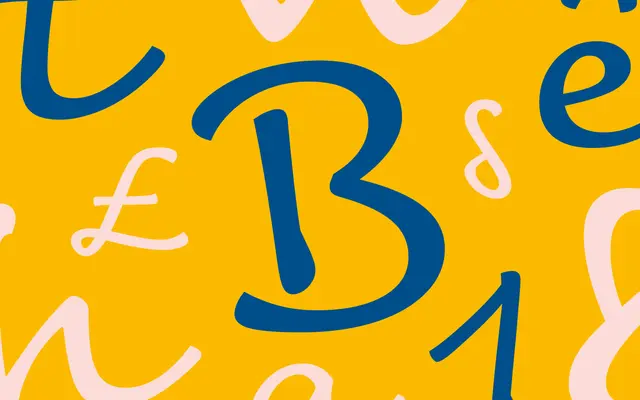
Tornac
Dalton Maag · Jeremie Hornus · 2017
A casual handwritten script by Jeremie Hornus with a warm, rhythmic flow drawn for magazine titling, packaging and advertising.
A handwritten script by Jeremie Hornus drawn for magazine titling, packaging and advertising. A single Regular cut carries broad, generous proportions and a rhythmic, spontaneous flow that lands closer to a confident pen than a calligraphic exhibit. Reach for it where you want warmth, summer-light energy and a personal voice without breaking into ornament.
Dalton Maag describe Tornac as a handwritten script that feels like a warm summer afternoon, with a pleasing rhythmic flow that feels natural and spontaneous and broad proportions that exude elegance, suited to magazine titling, packaging and advertising.